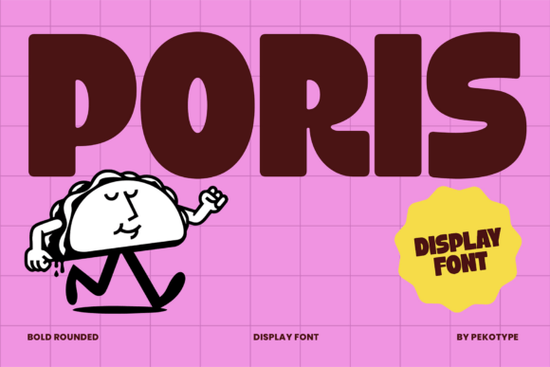
If you’re looking for a bold, all-caps display font that feels both modern and nostalgic something that stands out on a poster, logo, or merch design without trying too hard you’ll likely enjoy PORIS. It’s not just another retro-inspired typeface. PORIS balances chunky, confident letterforms with smooth curves and friendly proportions, making it easy to read at a glance but memorable enough to stick in the mind. Designers and small business owners often reach for it when they need strong visual impact without sacrificing warmth or approachability.
When does PORIS work best?
PORIS shines where presence matters: headlines, packaging, social media banners, food truck signage, event posters, and apparel prints. Because it’s all caps and built for display not body text it’s ideal for short, punchy messages. Think “OPEN DAILY”, “FRESH BAKED”, or “SOLD OUT”. Its multilingual support means it handles accents and extended Latin characters well, so it’s practical for small businesses serving diverse communities or selling internationally.
It’s especially popular among print-on-demand sellers who pair PORIS with playful illustrations or vintage-style layouts. The font’s retro feel doesn’t lean too heavily into 70s kitsch or 80s neon it’s more like a relaxed, sun-bleached version of classic American signage. That makes it versatile: use it straight up for a bold statement, or soften it with muted colors and organic textures for something more handmade and authentic.
Because PORIS is a sans-serif display font, it pairs naturally with softer handwritten or serif companions. For example, many designers use it for a headline alongside Beloved Botanical for subheadings or product descriptions. Others combine it with Biggie Stencil for layered contrast PORIS for impact, Biggie for texture and craft appeal.
How does PORIS compare to other bold retro fonts?
Unlike some stencil or distressed retro fonts, PORIS stays clean and legible even at smaller sizes (like 48–60pt on Instagram Stories). It doesn’t rely on gimmicks no faux wear, no uneven stroke weights to sell its personality. That makes it more adaptable across mediums: screen, print, embroidery, and cut vinyl all handle it well.
Who actually uses PORIS and why?
We’ve seen crafters use it for custom cookie packaging labels, food truck owners for chalkboard-style menu boards, and Etsy sellers for printable wall art bundles. One small-batch soap maker told us they chose PORIS because it “feels like sunshine and confidence” not overly serious, but still trustworthy. Another used it across their entire rebrand: logo, website hero text, and tote bag prints. No extra tweaks needed. Just install, type, and go.
It’s also beginner-friendly. If you’re new to typography, PORIS removes guesswork: no need to adjust tracking or kerning heavily, and it holds up even with basic font scaling in Canva or PicMonkey. That reliability saves time especially when juggling multiple product listings or seasonal campaigns.
A quick checklist before you download
- ✔ You need an all-caps display font not for paragraphs, but for short, high-impact text
- ✔ Your project benefits from a retro-but-not-costume-y vibe (think roadside diner, not disco ball)
- ✔ You plan to use it across digital and physical outputs web, print, vinyl, embroidery
- ✔ You’d like to pair it thoughtfully with other fonts later (e.g., Poris Font + Beloved Botanical for balance)
If those match your needs, PORIS is ready to go no overthinking required.